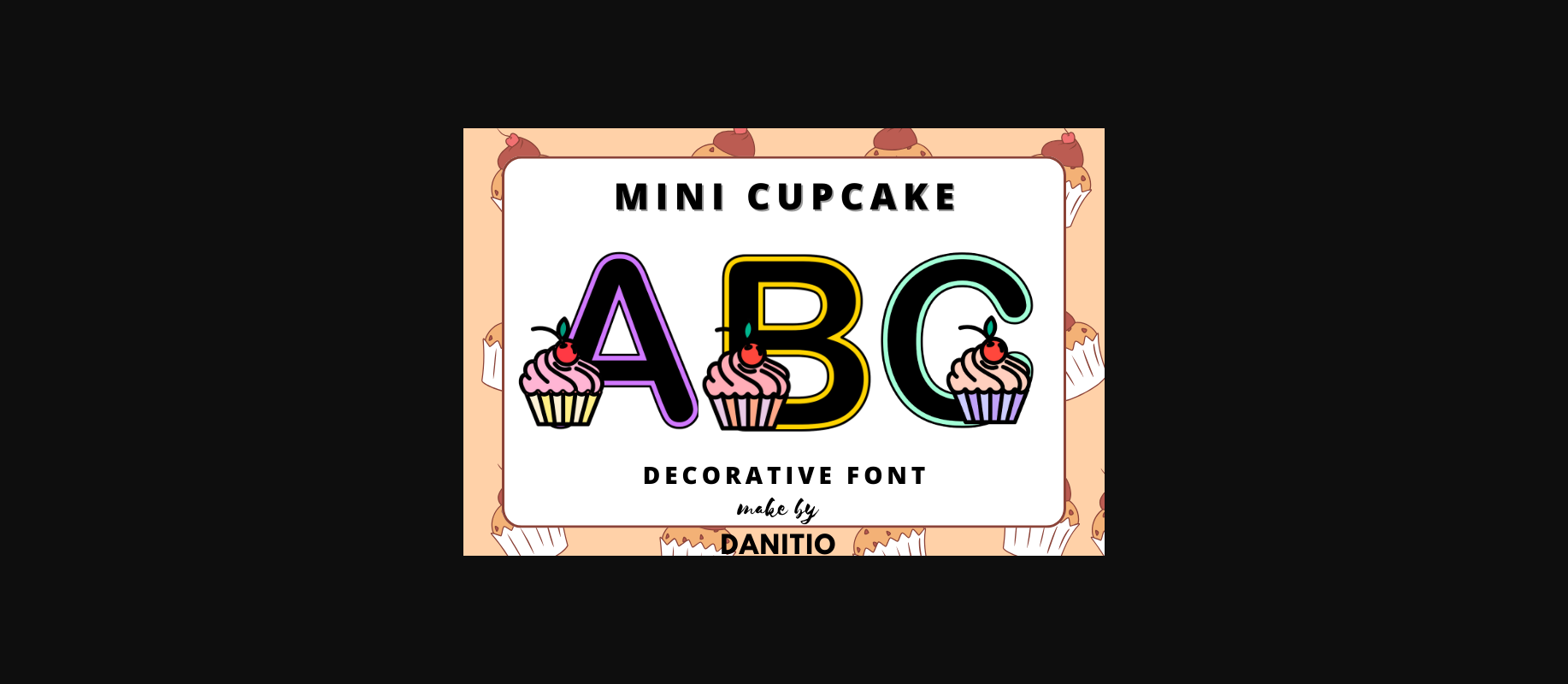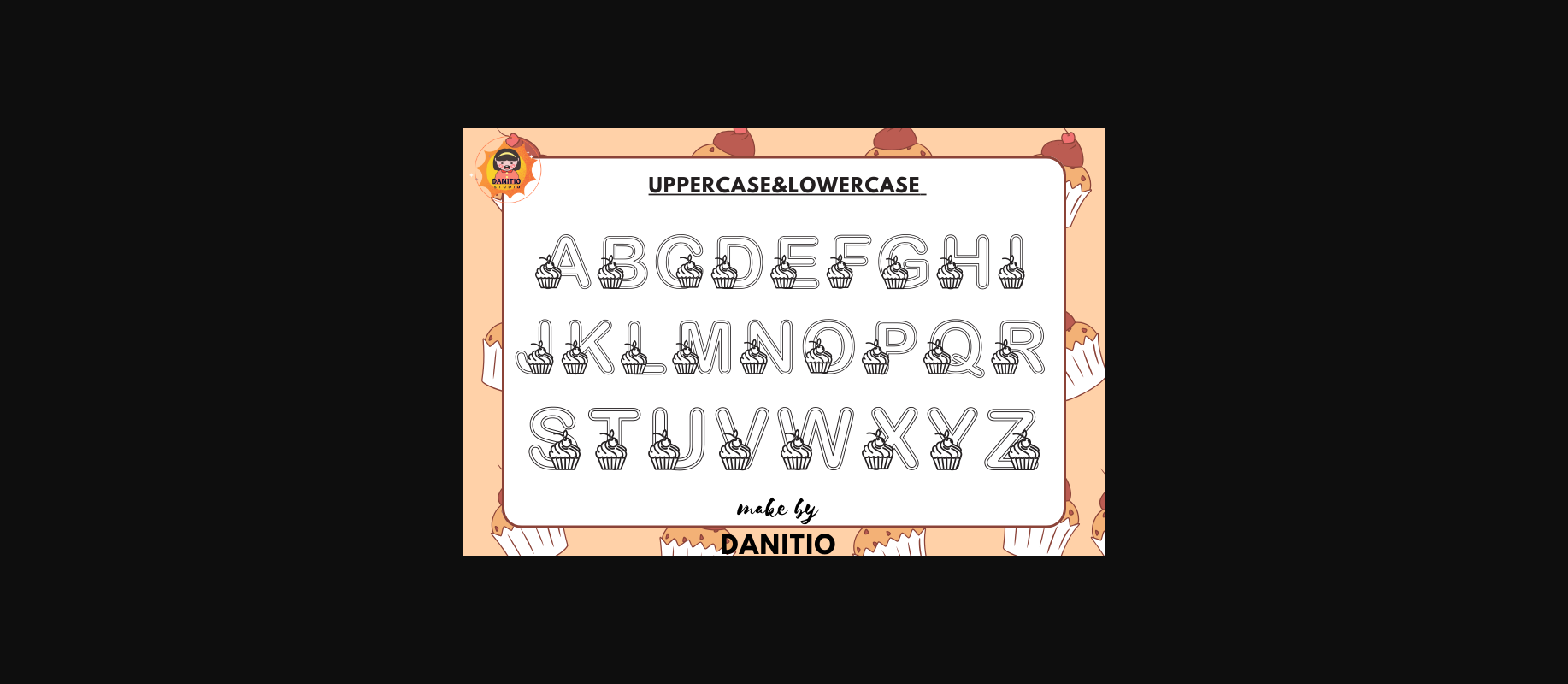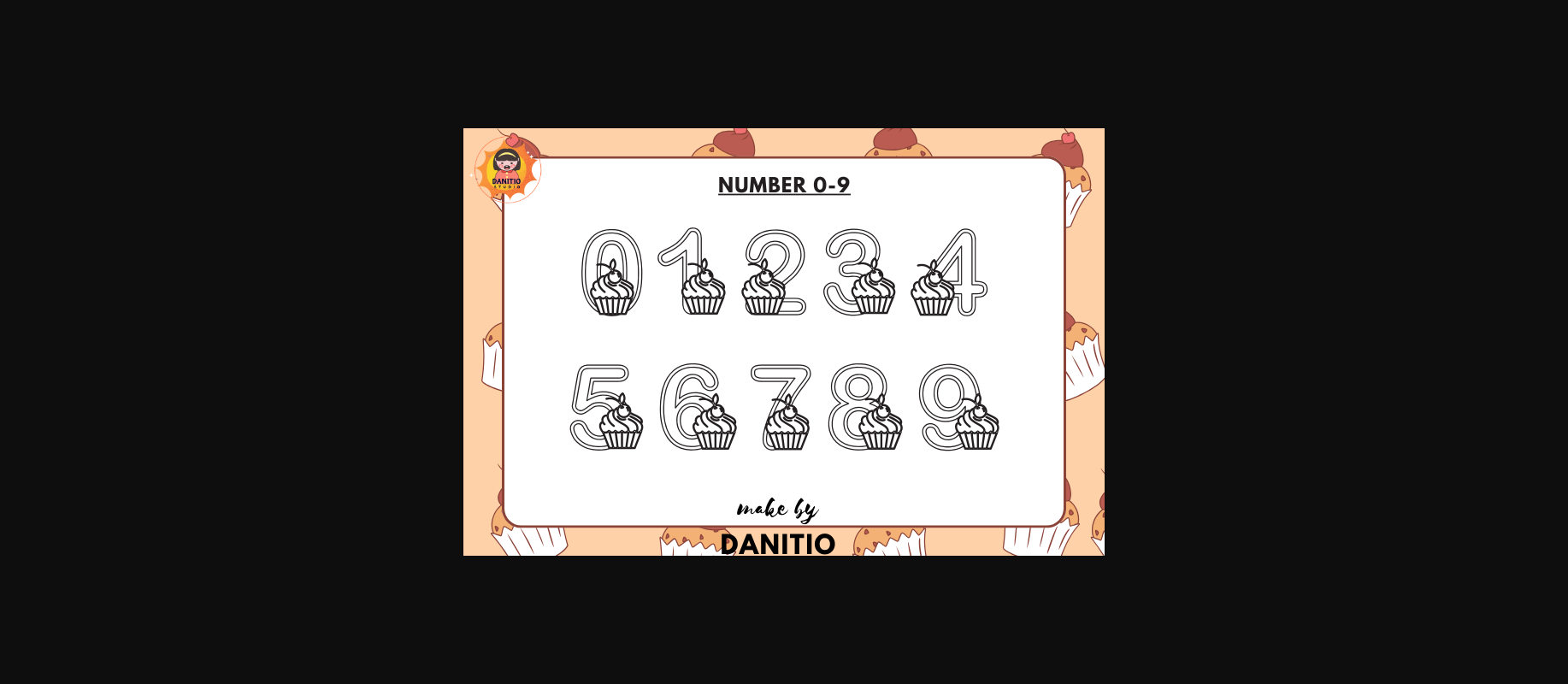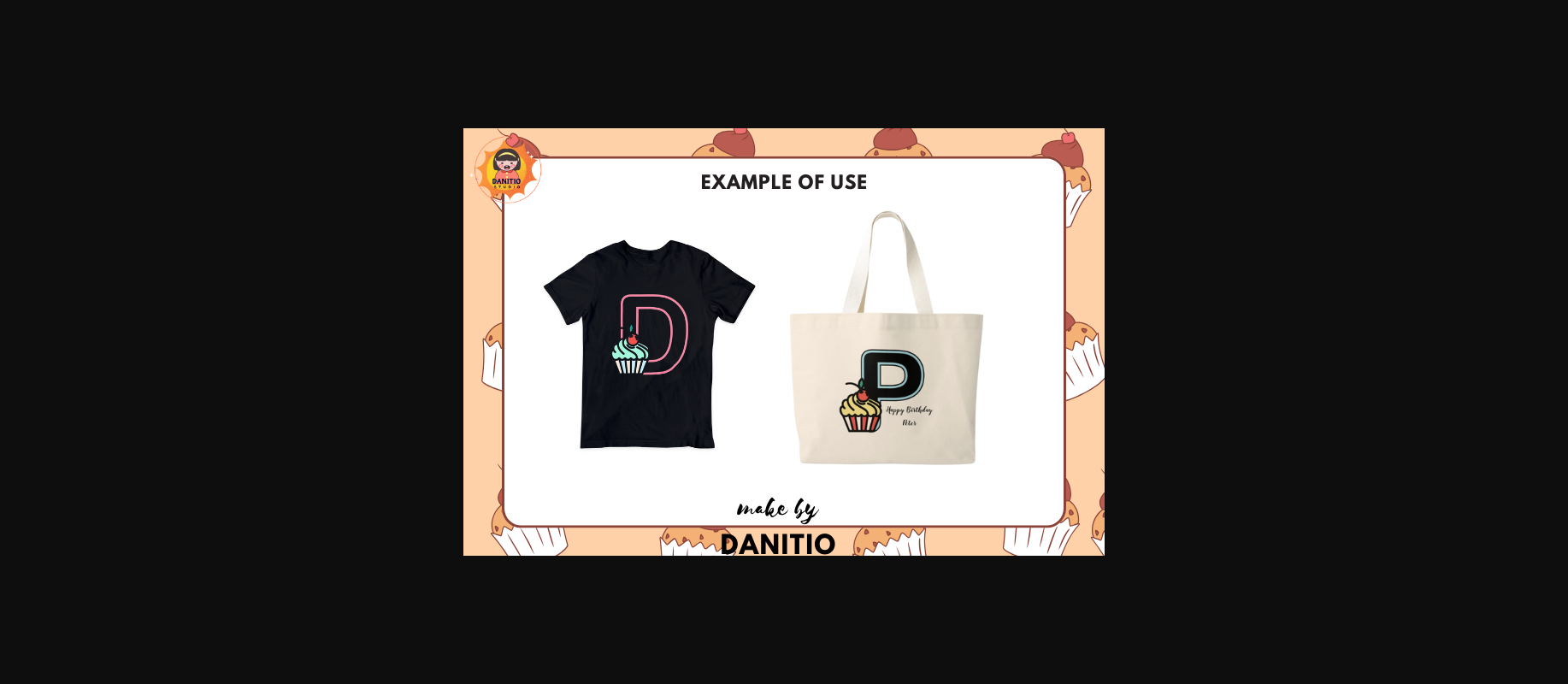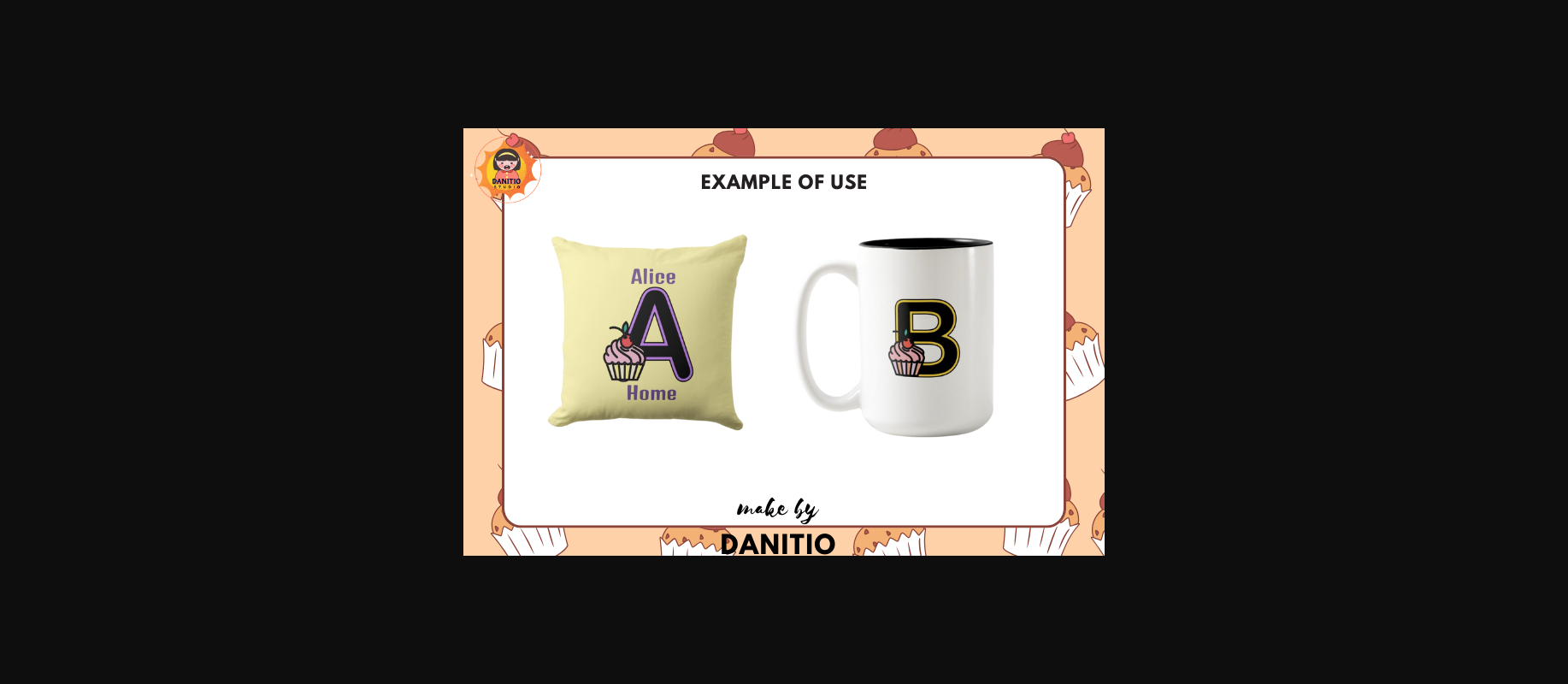
About Mini Cupcake Font
Mini Cupcake is a decorative font that has letters decorated with very cute little cakes, adding sweetness to every design. Ideal for adding a fun element to invitations, greeting cards, birthdays, and party decorations, it will bring joy and happiness wherever it is used.